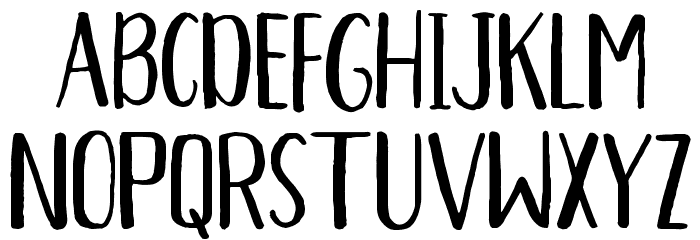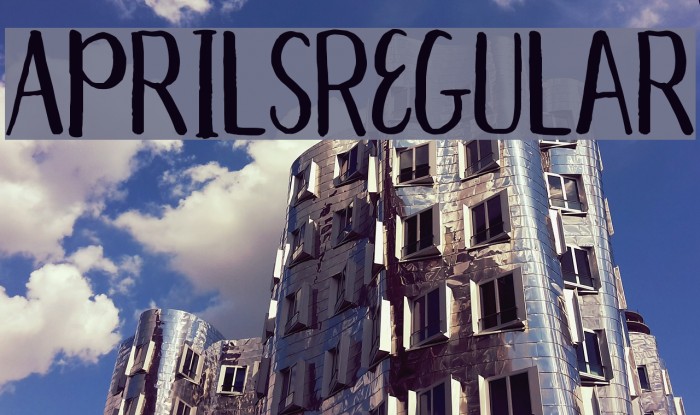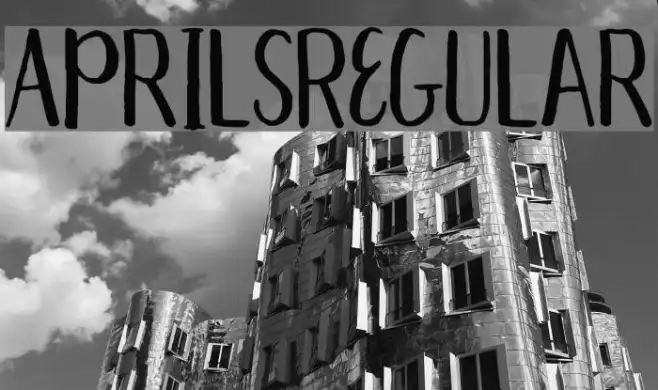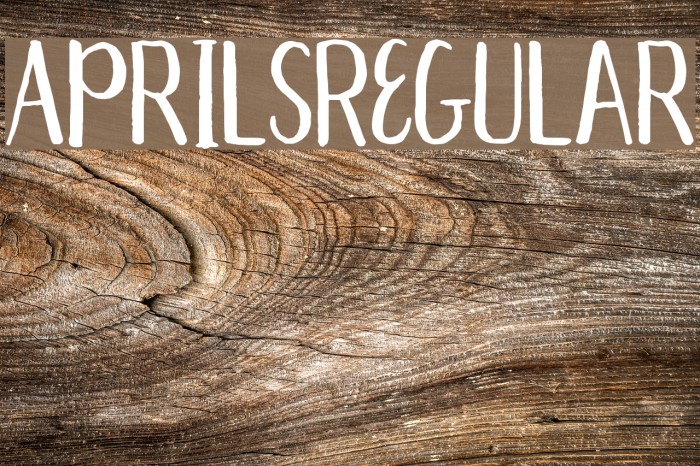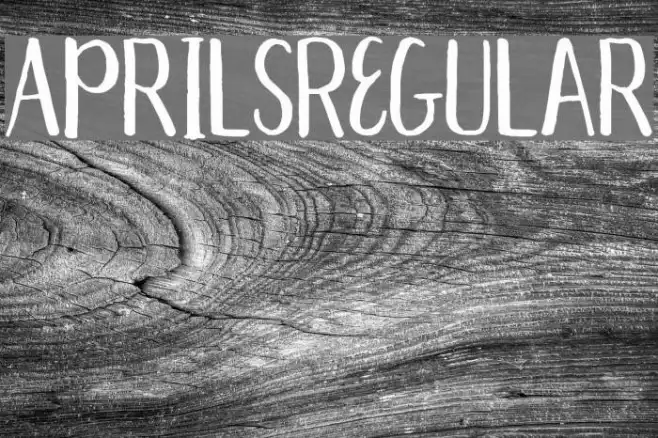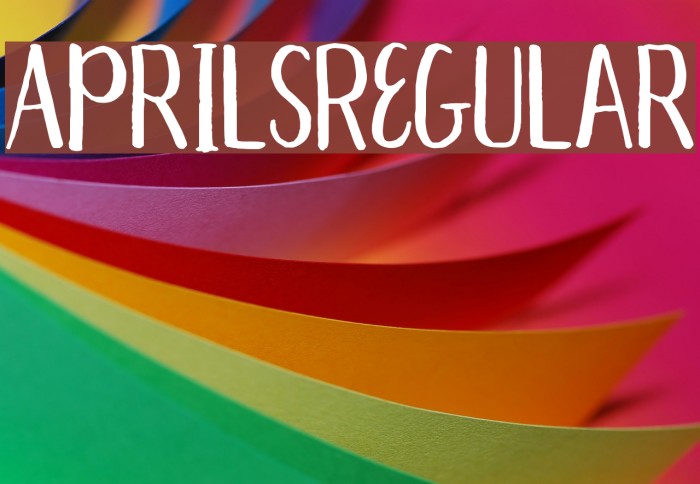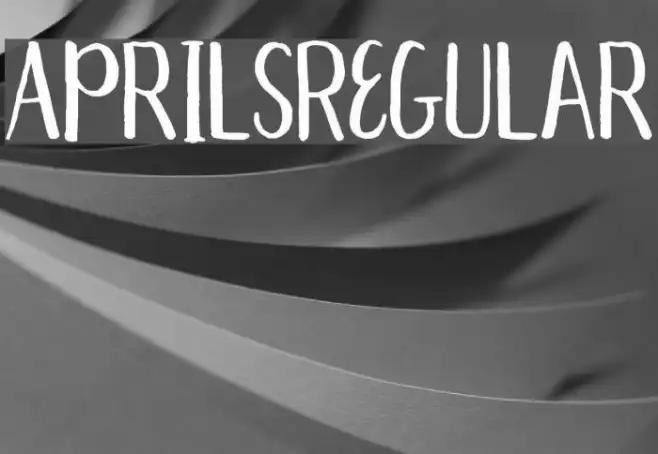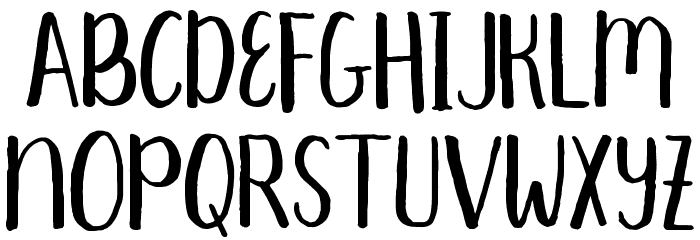
Aprils-Regular Font
Aprils-Regular Description
This font features a playful and hand-drawn aesthetic, characterized by its irregular strokes and slightly uneven baseline. The letters are tall and narrow, giving it a condensed appearance, while the strokes vary in thickness, adding a dynamic and lively feel. The uppercase and lowercase letters maintain a consistent style, with a whimsical touch that suggests a casual and friendly tone. The numerals and special characters are designed to match the overall style, ensuring a cohesive look across all text elements.
| Proposed Projects | Ideal for children's books, playful branding, greeting cards, and creative posters. |